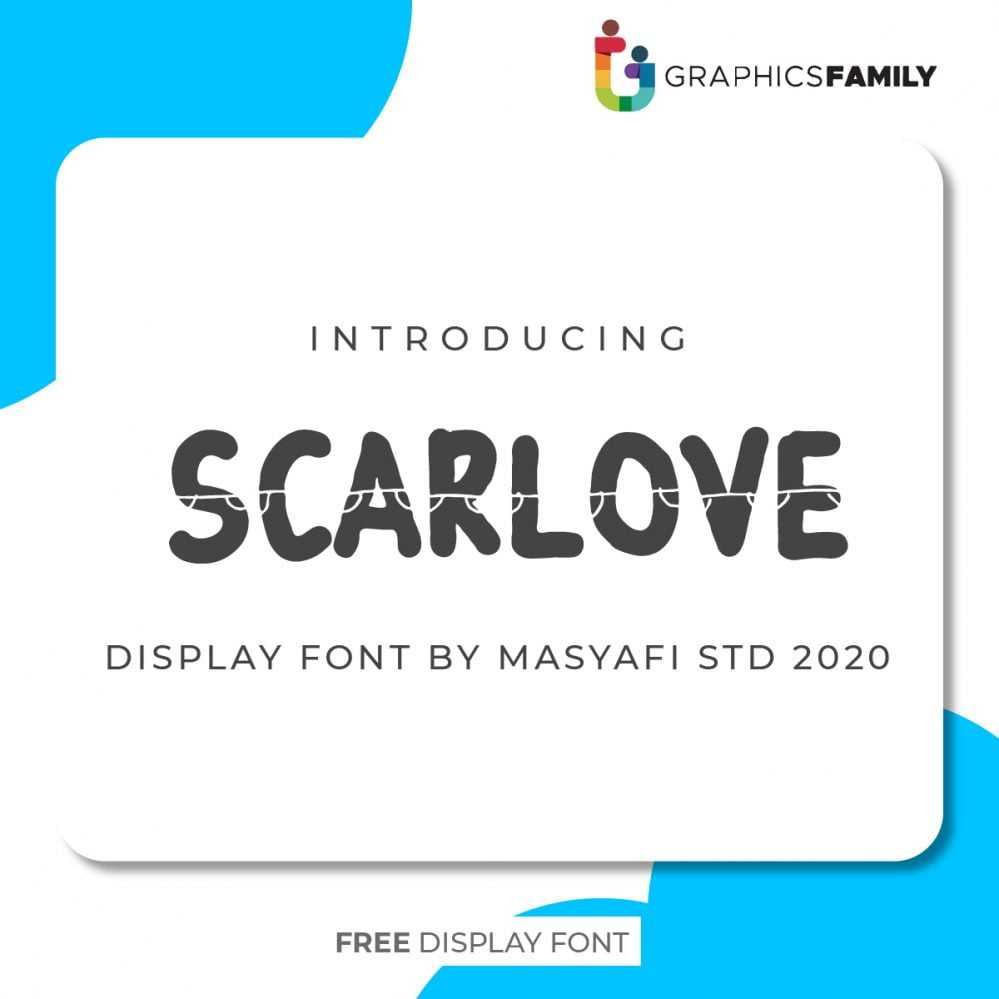
Free Scarlove Font Scarlove is a cute and incredibly trendy display font. Unique and friendly, this font will elevate each of your design projects! Get this amazing freebie and use it to create outstanding designs with it!